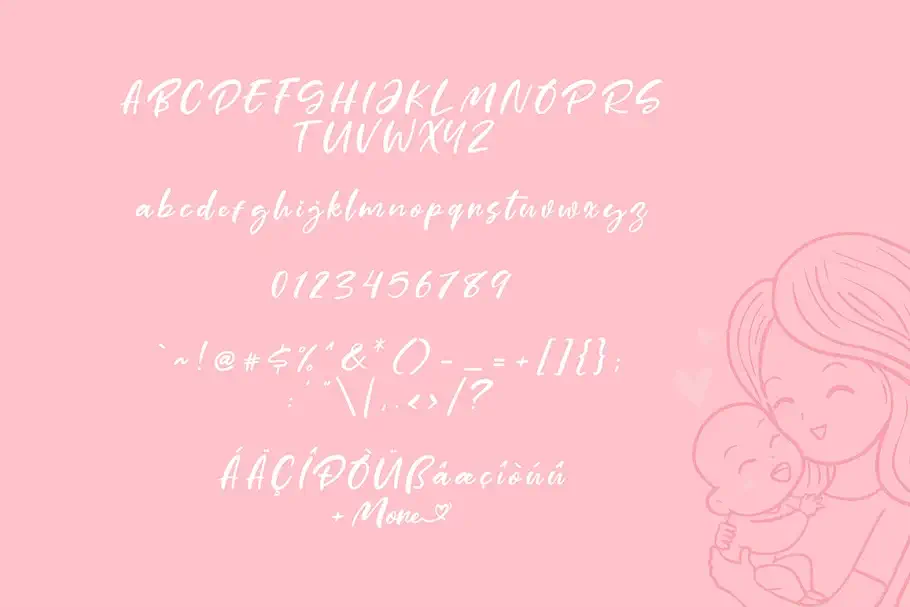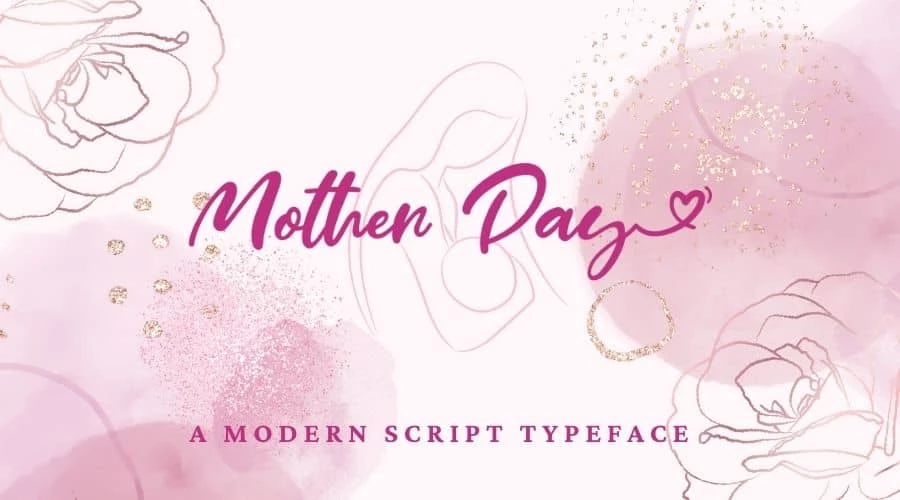
Mother Day font is a modern calligraphy typeface that can be used. The font is defined as a font that is light, thin, feminine, sophisticated, feminine, glamorous, simple, and attractive to the eye. Mother Day Font. It was shared and designed by khurasan. Mother Day font is a modern script typeface with a cheerful motif for your project.
Mother Day Script is a modern calligraphy typeface by Khurasan.